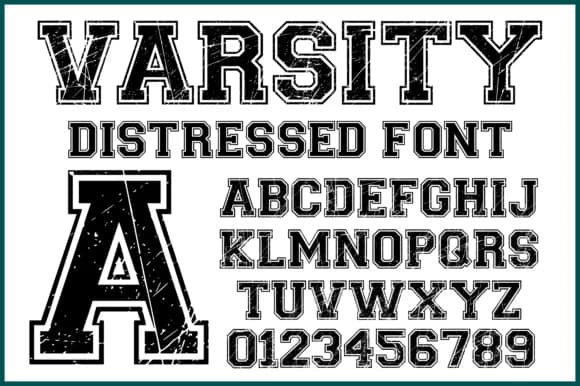
1 / 6About Rough Varsity Font
This font carries the weight of a hundred championship seasons. Rough Varsity, created by wtl.typography, is a distressed slab serif with a bold outline that looks authentically worn from years of use. The whole thing feels like typography that's been baked into sports culture for decades, not something manufactured in a lab to look that way. That distressed character and heavy outline combination is what makes it work so effectively for designs that need real grit, edge, and visual stopping power.
You'll find it working beautifully for vintage concert tee graphics, collegiate apparel branding, classic sports logo treatments, and retro athletic uniform mockups. Each application lets the typeface's worn texture actually earn its place in the design, especially when you need layouts that feel lived-in rather than sterile or generic. The serif outline detail delivers solid depth and maintains strong readability across different mediums, from digital screens to large-format print applications and signage.
Pairing it with a clean, minimal sans-serif for body text and supporting copy is the smart move, keeping your layouts breathing while this display typeface carries all the visual weight needed. Head to Creative Fabrica to grab Rough Varsity and add that authentic athletic heritage to your next project.
- Sturdy, Confident, Varsity Font
Rough Varsity Font is a slab serif font that shines as a display or heading face. Pair it with a clean sans-serif or serif font for body text β the contrast creates a clear hierarchy while the two styles stay balanced and easy to read.